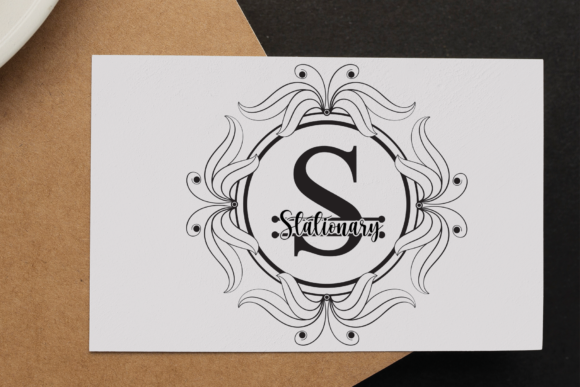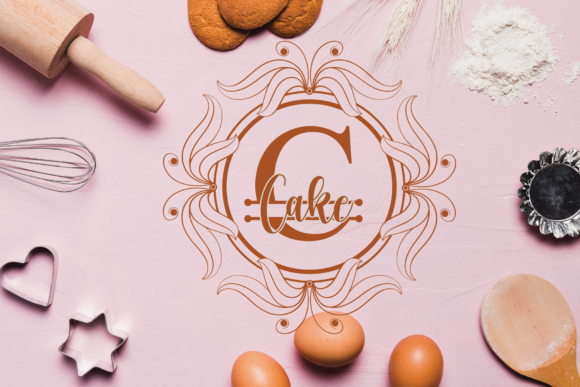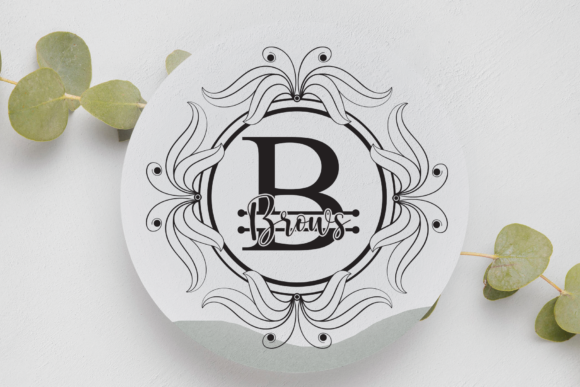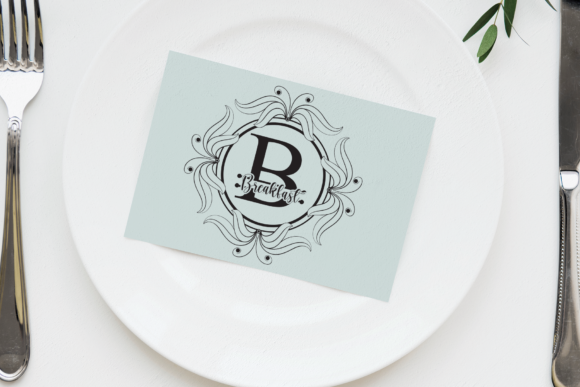
Unleashing the Magic of Kingdom Font
Do you remember the moment when you stumbled upon that perfect font that made your design come alive? For many of us, it’s a moment that sparks creativity and sets the tone for our entire project. I still recall the excitement I felt when I first laid eyes on Kingdom Font – its delicate lines, intricate details, and elegant touch instantly captivated me.
Kingship Font is a beautiful and highly detailed decorative font designed to elevate any design project. Whether you’re crafting love letters, wedding invitations, or simply adding a touch of whimsy to your favorite design ideas, this font is sure to leave a lasting impression. Its versatility and aesthetic appeal make it a valuable asset for designers, allowing them to add a unique touch to their work.
Key Features of Kingdom Font
- Font Family: Kingdom Font is a unique, custom font designed specifically for use in digital products, including fonts for digital signage, mobile apps, and video games.
- Unique Characteristics: Kingdom Font features a distinctive, hand-drawn design with intricate details and subtle texture, giving it a premium and luxurious feel.
Designer Review: Kingdom Font
Overall, I think the Kingdom Font is a solid choice for any project, but like any font, it has its strengths and weaknesses.
- ✨ Unique Character Set: The Kingdom Font offers a range of unique and interesting characters that can add a touch of personality to any design.
- ✨ Good for Display Text: The font is well-suited for use as display text, making it a great choice for headlines and titles.
- ✨ Easy to Read: Despite its ornate design, the Kingdom Font is surprisingly easy to read, even at smaller font sizes.
- ⚠️ Limited Font Sizes: While the font is great for display text, it can become too ornate and difficult to read at smaller font sizes.
- ⚠️ Not Ideal for Body Text: Due to its unique design, the Kingdom Font is not the best choice for body text, where readability is key.
- ⚠️ May Not Be Accessible: Some of the more ornate characters may not be accessible on all devices or operating systems.
Overall, I would recommend the Kingdom Font for projects where a unique and eye-catching display font is needed, but not for projects where readability is the top priority.
Kingdom Font Practical Application Guide
Tip: Use Kingdom Font to create a medieval-inspired design, such as a fantasy book cover or a historical event poster.
Tip: Use Kingdom Font to create a custom title or heading for your design, such as a fantasy novel title or a historical event banner.
Tip: Use Kingdom Font to create a medieval-inspired presentation or document, such as a historical lecture or a fantasy-themed report.
Kingdom Font is commonly used in:
- Medieval-inspired designs, such as fantasy book covers or historical event posters.
- Historical presentations or documents, such as lectures or reports.
- Custom titles or headings for fantasy novels or historical events.
Alternatives to Kingdom Font for Designers